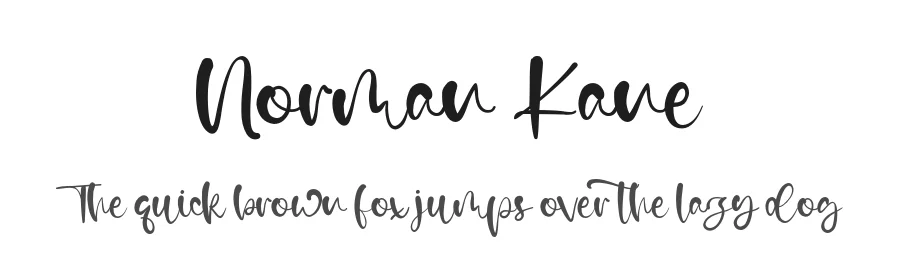
About Samoa Font
Samoa Specifications
| Font Family | Samoa |
| Full Name | Samoa |
| Glyph Count | 230 glyphs |
| PostScript Name | Samoa |
| Designer | Staircase Studio |
Samoa supports 224 languages.
Samoa Font is a script font that shines as a display or heading face. Pair it with a clean sans-serif or serif font for body text β the contrast creates a clear hierarchy while the two styles stay balanced and easy to read.